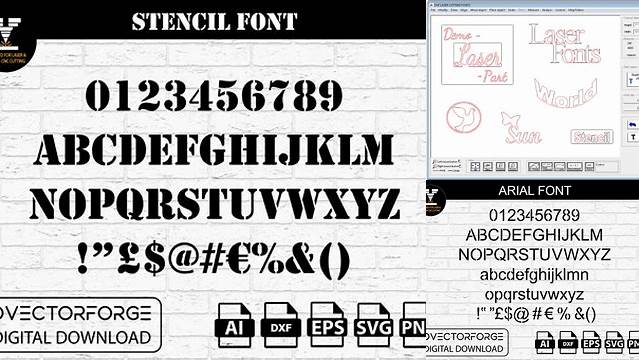
Mastering DXF Laser Cutting Fonts: A Comprehensive Guide
Unveiling the World of DXF Laser Cutting Fonts
Hey everyone, let's dive into the fascinating world of DXF laser cutting fonts! If you're into laser cutting, you've probably stumbled upon the term DXF files. DXF, which stands for Drawing Exchange Format, is a file format that allows you to share designs between different software programs. It's like a universal language for CAD (Computer-Aided Design) drawings, making it super easy to transfer your designs to your laser cutter. Now, when we talk about DXF laser cutting fonts, we're essentially referring to fonts specifically designed for laser cutting. Traditional fonts, while looking great on a screen, aren't always ideal for laser cutting because they might have overlapping lines or closed shapes that the laser cutter would interpret in a way that isn't what you want. These laser-cut fonts are created with clean lines and optimized for the laser cutting process, ensuring your designs come out looking crisp and clean. Choosing the right font can make all the difference in the final result of your project. Think about it: a beautiful font can elevate your project, while a poorly chosen font can make it look unprofessional or hard to read. Selecting fonts suitable for laser cutting can sometimes feel like navigating a maze, but worry not, guys, because we are going to cover everything you need to know.
So, what makes a font suitable for laser cutting? First off, you want to make sure the lines are clean and the shapes are simple. Avoid fonts that have overly intricate designs or overlapping lines, as these can cause issues with the laser cutter. Secondly, consider the thickness of the lines. Laser cutters work by removing material, so the thinner the lines, the better, as you'll get a finer cut. You should also think about the size of the font. Really small fonts might be difficult to cut, depending on the material and the precision of your laser cutter. And don't forget about the kerning, or the spacing between letters. The laser cutter will follow the vector paths of the font, so it's essential that the spacing is accurate for the text to be readable. You will find that some fonts are specifically made for laser cutting, while others can be modified to make them suitable. These specialized fonts often have design elements like single-line strokes and open shapes that work perfectly with a laser cutter, resulting in cleaner cuts and less wasted material. If you're new to laser cutting, you might want to start by experimenting with some free DXF fonts. There are plenty of options out there, and this will give you a feel for what works and what doesn't. Check out online marketplaces or font websites, and you'll be surprised at the variety of laser-cutting fonts available. Remember that practice makes perfect.
How to Prepare Your Fonts for Laser Cutting
Alright, let's get into the nitty-gritty of preparing your fonts for laser cutting. Before you even think about firing up your laser cutter, you need to make sure your fonts are ready for the job. The first step is to convert your text into vector format. Most design software programs, like Adobe Illustrator, CorelDRAW, or Inkscape, allow you to do this. Essentially, you're turning your text from a series of characters into a set of lines and shapes that your laser cutter can understand. This is usually done by outlining or expanding the text. Once you've converted your text to vectors, it's time to clean it up. Some fonts might have overlapping lines or nodes that could cause problems with the laser cutter. Use the software's editing tools to simplify the design. This involves removing unnecessary nodes and merging overlapping lines to ensure a clean cut. Next, check the line thickness. Laser cutters typically work with vector lines, and you'll want to set the line thickness to a specific value, usually referred to as the 'hairline' setting. This ensures the laser cutter follows the entire path of the vector. A hairline stroke tells the laser cutter to cut along that line. Make sure your design software supports this. You'll also want to consider the spacing between letters. If the letters are too close together, they might melt into each other, and if they're too far apart, the text might look disjointed. Adjust the kerning and tracking in your design software to get the spacing just right. Lastly, always double-check your design before sending it to the laser cutter. Zoom in and make sure everything looks perfect. Check for any gaps, overlaps, or other issues that might affect the final result. It's better to catch these things now, before you waste material and time.
Essential Software and Tools for DXF Laser Cutting Fonts
Now, let's talk about the tools you'll need to bring your DXF laser cutting fonts to life! Having the right software and tools can make the whole process a lot smoother and more enjoyable. First and foremost, you'll need design software that supports DXF files. Adobe Illustrator, CorelDRAW, and Inkscape are some popular choices. These programs allow you to create and edit vector graphics, which is essential for preparing your fonts for laser cutting. These programs are packed with features for manipulating text, setting line weights, and exporting your designs in the correct format. A solid CAD software is your best friend. Next, you'll need a laser cutting software that can communicate with your laser cutter. This software takes your DXF files and converts them into instructions that the laser cutter can understand. Most laser cutter manufacturers provide their own software, but there are also third-party options available. These software programs let you control the laser power, speed, and other settings to optimize the cutting process. You should also have a good font management tool. Because you will be using a ton of fonts! This will help you organize and manage your font library. There are lots of font managers out there, both free and paid, that let you preview fonts, install and uninstall them, and keep track of your favorites. Consider the materials you'll be using. Different materials require different settings, so you'll need to know the optimal settings for each material. You can usually find this information in your laser cutter's manual or online. Don't be afraid to experiment! Finally, you'll need a laser cutter! There are many different types of laser cutters on the market, from small desktop models to large industrial machines. The one you choose will depend on your budget and the types of projects you plan to create. Always wear laser safety glasses when operating a laser cutter. This will protect your eyes from the harmful laser light. Make sure your work area is well-ventilated to remove any fumes or smoke produced during the laser cutting process. And always follow the manufacturer's safety instructions for your laser cutter.
Finding and Choosing the Right DXF Laser Cutting Fonts
So, where do you find these amazing DXF laser cutting fonts? And how do you choose the right ones for your projects? Let's explore the world of font resources and selection. There are several websites and online marketplaces where you can find free DXF fonts. Websites like DaFont, FontSpace, and 1001Fonts offer a wide variety of fonts that you can download and use for personal projects. Be sure to check the license of each font before using it for commercial purposes. You can also find premium DXF laser cutting fonts on websites like Creative Market and Etsy. These fonts are often designed specifically for laser cutting and may offer more advanced features and design options. Consider the design of your project and the style of font that best complements it. Do you need a bold, modern font? Or a delicate, script font? Think about the type of material you'll be using. Some fonts work better with certain materials than others. A thick, blocky font might be ideal for cutting thick wood or acrylic, while a thin, elegant font might be better suited for paper or thin materials. Always check the license before using a font for commercial purposes. Some fonts are free for personal use only, while others require you to purchase a commercial license. Check for fonts that have been specifically designed for laser cutting, with clean lines and minimal overlapping shapes. Look for fonts that are easy to read, even at smaller sizes. And always test your fonts on a sample material before committing to a full project. Select fonts based on their suitability for laser cutting, prioritizing clean lines and optimized designs. Keep the material in mind too!
Optimizing Your DXF Fonts for Laser Cutting Performance
Once you've selected your fonts, the work doesn't stop there! Optimizing your fonts for laser cutting is crucial for getting the best results. The first thing you want to look at is line simplification. Many fonts come with a lot of unnecessary nodes and curves. Use your design software to simplify these lines, which will help the laser cutter move more efficiently and reduce cutting time. Next, ensure that the lines are properly joined. The laser cutter needs to know where to start and stop, so make sure all the lines in your design are connected and form closed shapes. This can be especially important for lettering. Next, ensure that the kerning, or the spacing between letters, is correct. If the letters are too close together, they might merge together, and if they're too far apart, the text will look disjointed. Always test your designs on a small sample of the material you're using before you begin your final cut. This will help you catch any potential issues and make adjustments to the settings. This will also allow you to experiment with different settings and see how they affect the final result. Then, you might want to consider using a thicker line weight for your designs. A thicker line weight will make the text more visible and easier to read. But be careful, as a line weight that is too thick can also take longer to cut. Keep in mind the size of the text. If you are cutting very small text, the laser cutter might not be able to cut it accurately. Experiment with the settings of your laser cutter to get the best results for the material you're using. Optimizing the laser power and speed settings can make a big difference in the final result. This involves setting the correct power for the laser, the speed, and the focus settings. This will depend on the material you are using and the thickness of the material. Experimenting is the key!
Troubleshooting Common Issues with DXF Laser Cutting Fonts
Even with the best preparation, you might run into some issues when working with DXF laser cutting fonts. But don't worry, it's all part of the learning process! Let's troubleshoot some common problems. One common issue is that the laser cutter isn't cutting all the way through the material. This could be due to several factors, such as the wrong laser power settings, a dirty lens, or the wrong focus. Always double-check your settings and make sure the lens is clean. Another common problem is that the letters are burning or charring. This could be due to the laser power being too high or the cutting speed being too slow. Experiment with different settings to find the right balance. Sometimes, you might find that the letters are not cutting cleanly or are breaking apart. This could be due to the font not being properly prepared for laser cutting. Make sure the lines are clean, the nodes are simplified, and the lines are properly joined. Also, double-check that you have the right line weight set for the laser cutter. Check for any errors in your design. Sometimes, there might be small gaps or overlaps that the laser cutter is having trouble with. Make sure you're using the right settings for the material you are using. Every material is different, so you may need to adjust the settings according to the material. You may be faced with a situation where the laser cutter is not following the correct path. Check the DXF file for any errors or inconsistencies. If you're working with a complex font, it might have unnecessary nodes and curves. Make sure the software you are using to design the fonts is compatible with the laser cutter you're using. And most importantly, don't be afraid to experiment.
Conclusion: Unleashing Your Creativity with DXF Laser Cutting Fonts
So there you have it, folks! A comprehensive guide to the world of DXF laser cutting fonts. From understanding the basics to preparing your designs and troubleshooting common issues, you're now equipped with the knowledge and skills to create stunning laser-cut projects. Remember to choose the right fonts, prepare them carefully, and optimize your settings for the best results. Always have fun, and don't be afraid to experiment. The most important thing is to enjoy the creative process and see your ideas come to life. With a little practice and patience, you'll be amazed at what you can achieve. Embrace the journey of laser cutting, and let your creativity soar. The world of laser cutting is constantly evolving, so keep learning and experimenting. Happy cutting!